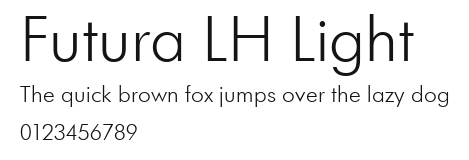
• Font Name: Futura LH Light
• Font ID: Linotype-Hell AG Futura LH Light
• Full Font Name: Futura LH Light
About Futura LH Light.ttf
Futura LH Light.ttf is a modern, elegant sans-serif font designed for ultimate readability and visual harmony. Perfect for branding, headlines, web design, and print materials.